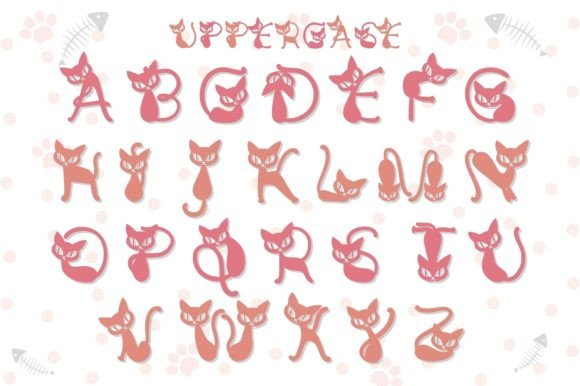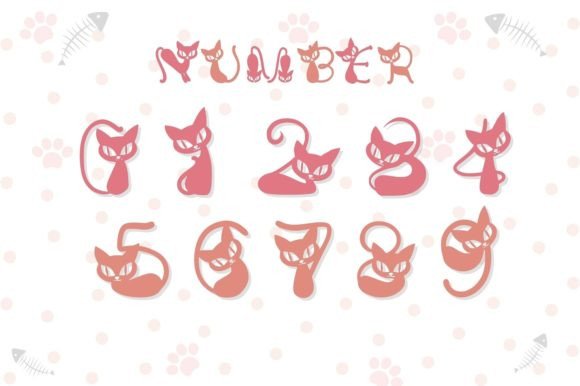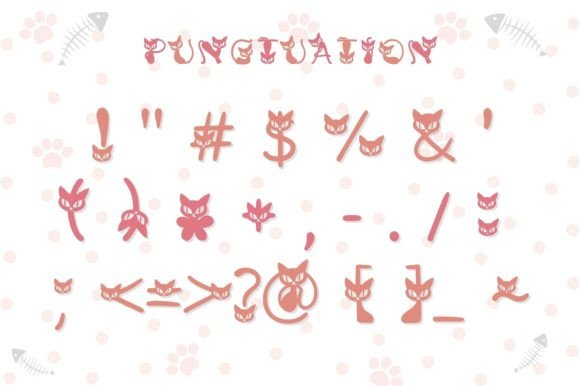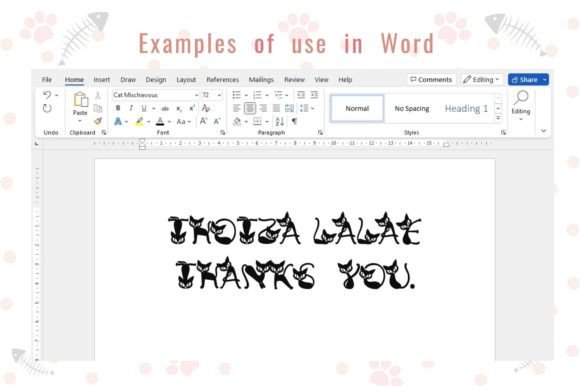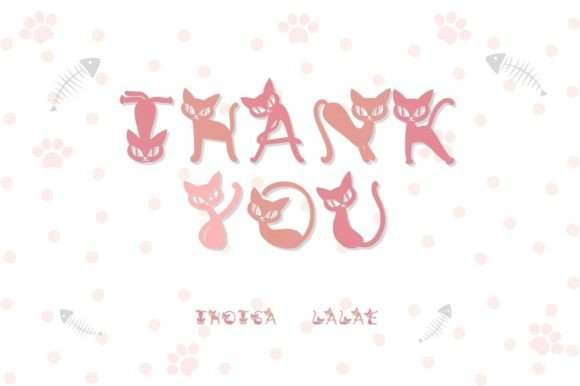
Unleash the Mischief: Exploring the Delightful World of Cat Slave Font
Are you a designer, crafter, or simply a cat lover looking for a unique and playful font to add some whimsy to your projects? Look no further than the Cat Slave Font, a charming and mischievous typeface inspired by our feline friends. In this article, we’ll dive into the world of Cat Slave Font, exploring its features, uses, and benefits, and why it’s purr-fect for a variety of creative endeavors.
The Inspiration Behind Cat Slave Font
Cat Slave Font is a design that’s deeply rooted in the playful and curious nature of cats. The font’s creator aimed to capture the essence of these mischievous creatures, infusing the design with a sense of fun and sophistication. The result is a fancy and cute font that’s sure to delight both designers and cat enthusiasts alike.
Key Features of Cat Slave Font
So, what makes Cat Slave Font so special? Here are some of its key features:
- Fancy and Cute Design: Cat Slave Font boasts an elegant and adorable design, perfect for adding a touch of whimsy to your projects.
- High Versatility: This font is suitable for a wide range of applications, from invitation embellishments to wall art, beverage logos, and seamless patterns.
- Easy to Read: Despite its decorative nature, Cat Slave Font remains highly legible, making it perfect for use in both digital and print materials.
Uses for Cat Slave Font
With its unique blend of elegance and playfulness, Cat Slave Font is an excellent choice for various creative projects, including:
- Invitation Embellishments: Add a touch of sophistication and whimsy to your invitations, wedding cards, and other paper crafts.
- Wall Art: Create stunning wall art, quotes, and posters that showcase your personal style.
- Beverage Logos: Design eye-catching logos for cat cafes, pet-friendly businesses, or any brand that wants to convey a sense of playfulness.
- Seamless Patterns: Use Cat Slave Font to create beautiful, repeating patterns for fabrics, wallpapers, or digital backgrounds.
Cat Slave Font offers numerous benefits for designers and crafters, including:
- Unique Design: Stand out from the crowd with a font that’s both distinctive and memorable.
- Time-Saving: Use Cat Slave Font to quickly create stunning designs, without spending hours on custom typography.
Tips for Using Cat Slave Font
To get the most out of Cat Slave Font, consider the following tips:
- Experiment with Colors: Pair Cat Slave Font with a range of colors to create visually striking designs.
- Mix and Match: Combine Cat Slave Font with other fonts or graphics to add depth and interest to your designs.
- Pay Attention to Scale: Ensure that your design is balanced by adjusting the font size and style to suit your project.
In conclusion, Cat Slave Font is a delightful and versatile typeface that’s sure to captivate designers, crafters, and cat lovers alike. With its fancy and cute design, high versatility, and ease of use, this font is purr-fect for a wide range of creative projects. So why not unleash your creativity and give Cat Slave Font a try? Your designs – and your feline friends – will thank you!